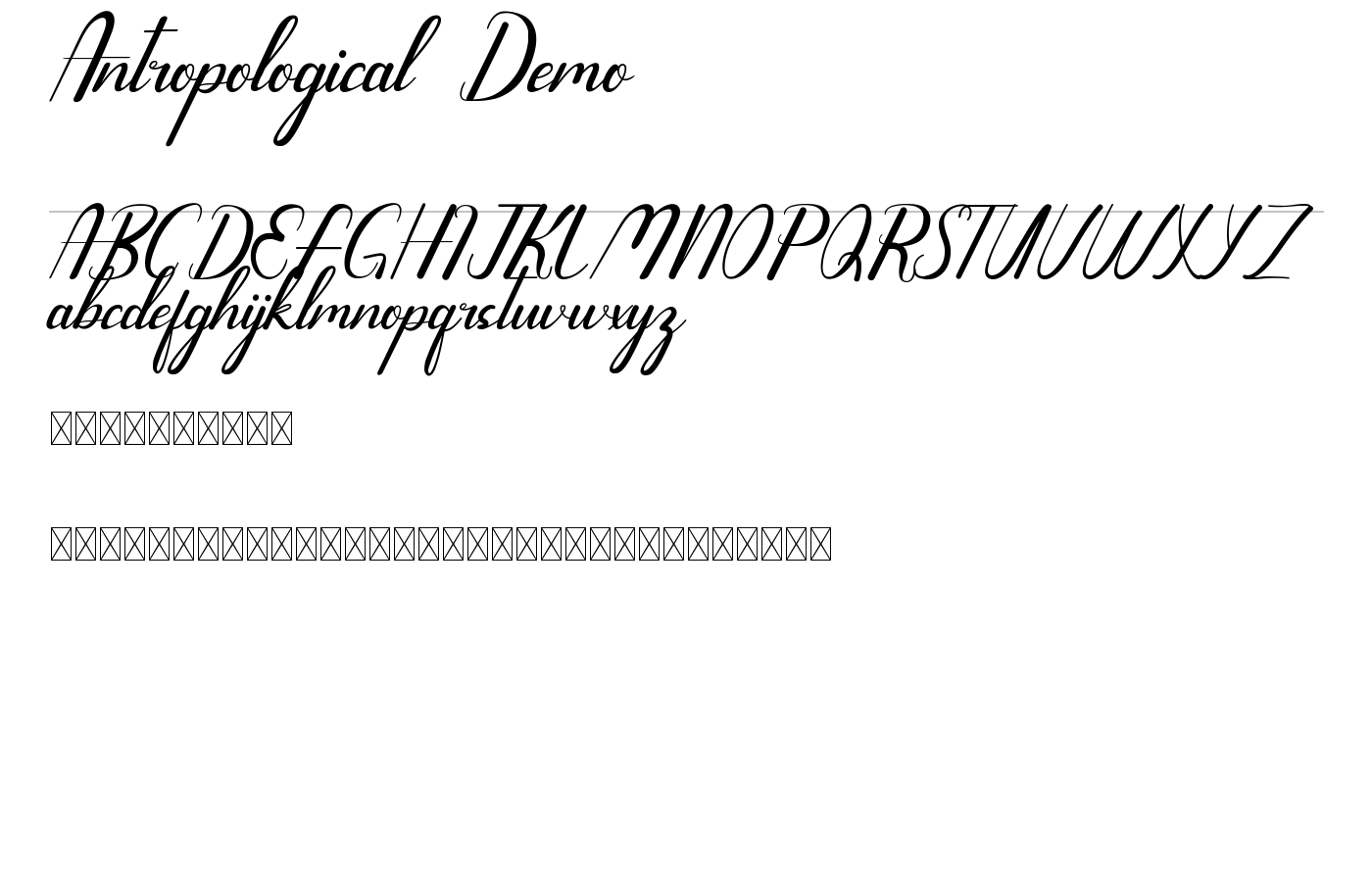
Antropological Demo is a slender, elegant script font featuring a delicate contrast between thick and thin strokes, which gives it a refined, handwritten feel. Its tall, narrow letterforms and smooth curves convey sophistication and grace, making it ideal for branding, invitations, or editorial use where a touch of elegance and personality is desired. This font works best in display settings that highlight its stylish, flowing character.
Antropological Demo Font
About Antropological Demo Font
| Font family | Antropological Demo Font |